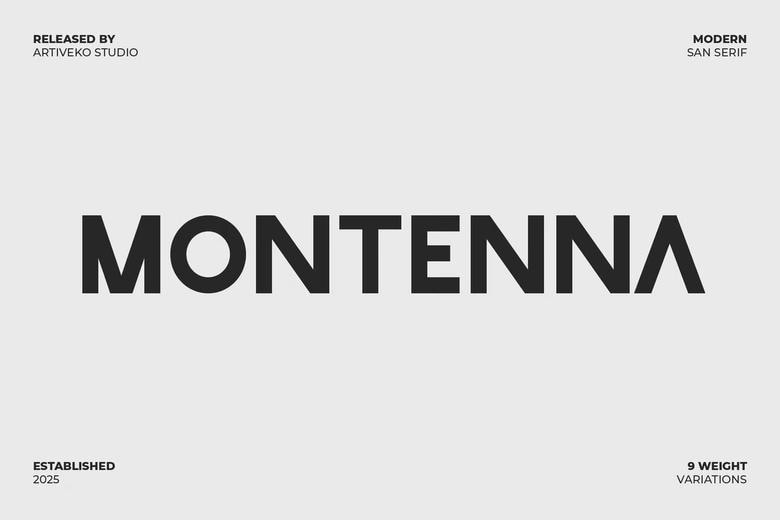
Montenna Font
Montenna is a high quality sans serif font that is designed by Artiveko and is available for free download and personal use. The free version provides all uppercase and lowercase letters and a few special characters too.
This typeface is perfect for elegant logos, branding, travel promotions, layout magazines, beauty products, product packaging, quotes, or simply as a stylish text overlay onto any background image.
Montenna Modern Sans Serif Font Family